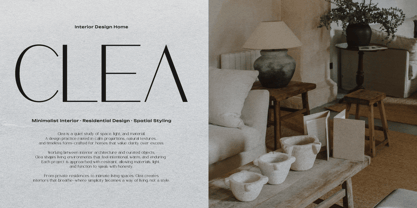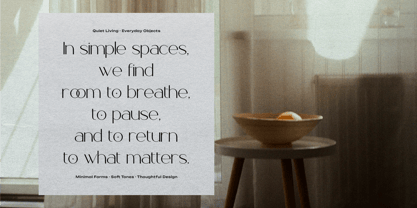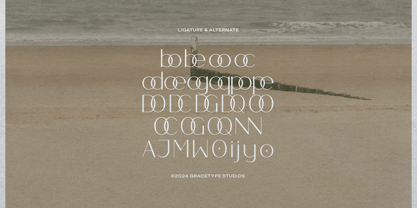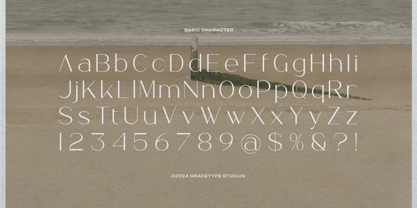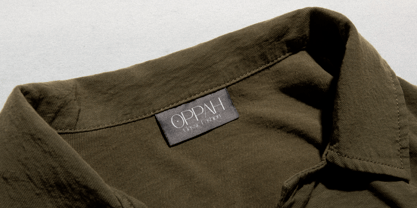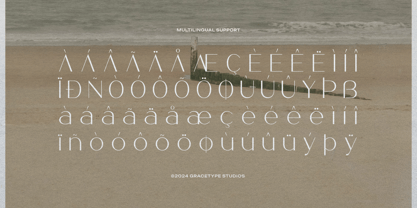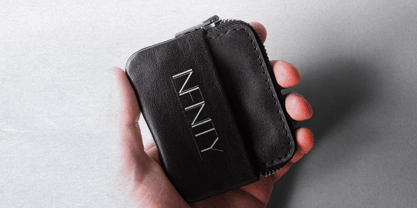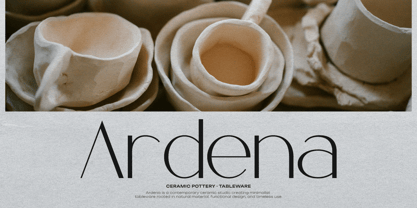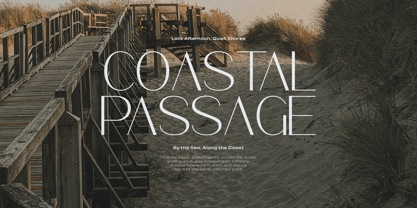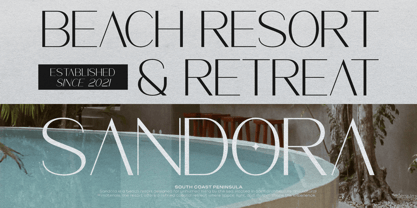
Kleanna
Kleanna | Minimalist Sans Serif, from Gracetypestudio, suitable for any projects such as: logos, branding projects, homeware designs, product packaging, mugs, quotes, posters, shopping bags, t-shirts, book covers, name card, invitation cards, greeting cards, label, photography, watermark, special events, and all your other lovely projects that need a Sans Serif taste.